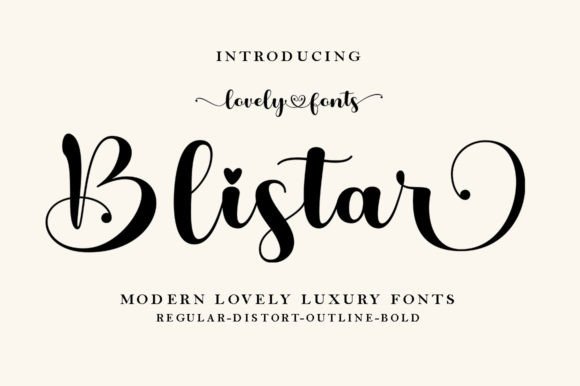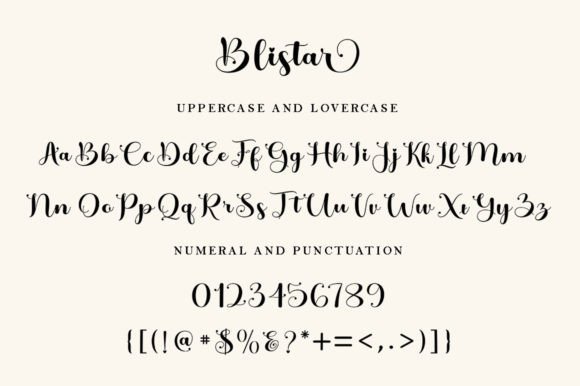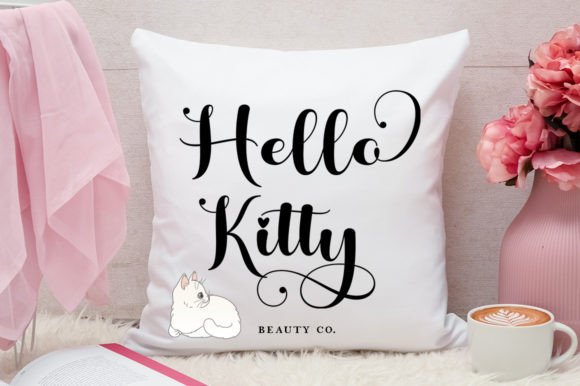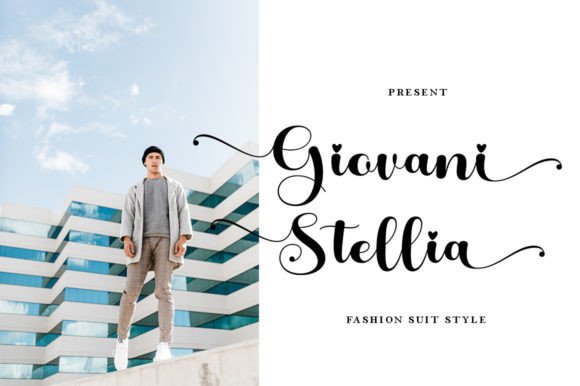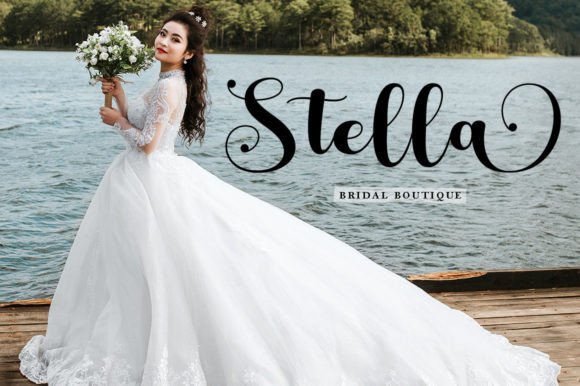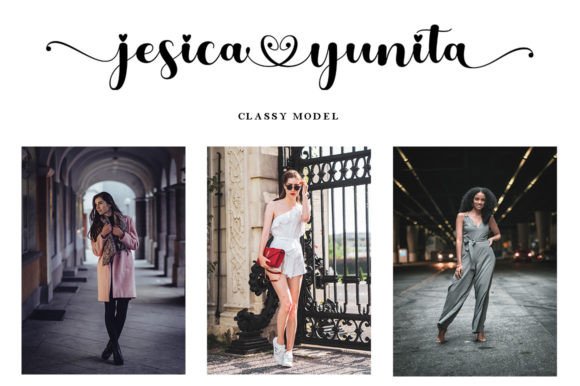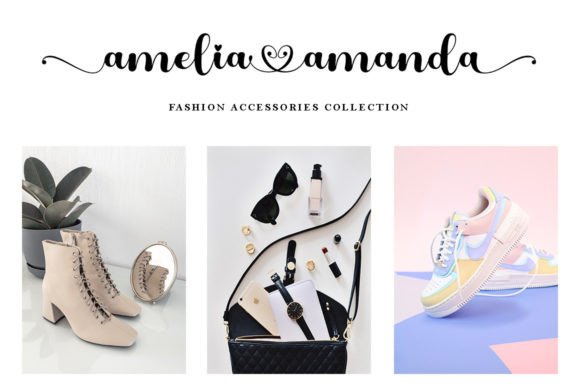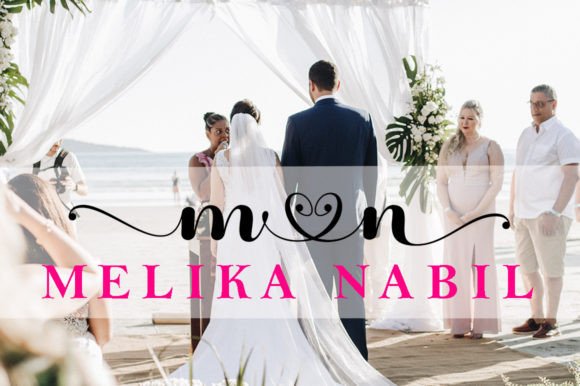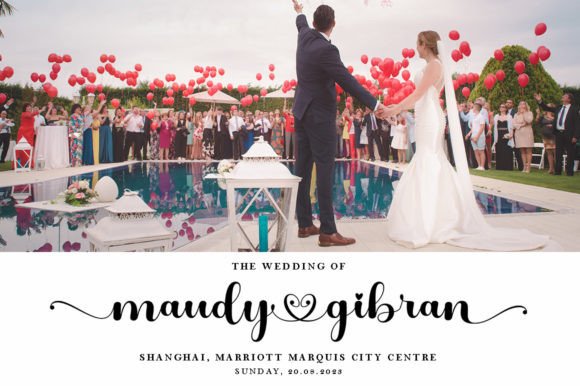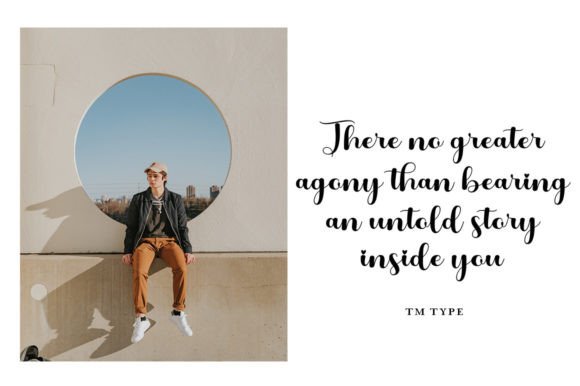
Blistar Font
Blistar Font: Modern Calligraphy for Romantic Designs
“Blistar” is a charming calligraphy font that brings romance and sweetness to your designs. Its graceful characters seem to dance along the baseline, perfect for various creative projects.
Key Features of Blistar Font
• Modern Calligraphy Style: Blistar combines contemporary flair with romantic elegance.
• Versatile Use: Suitable for many projects, from wedding invitations to love letters.
• PUA Encoding: Easy access to all glyphs and swashes for customization.
Wedding Stationery
Blistar’s romantic style is ideal for creating beautiful wedding invitations and other special event materials.
Love Letters and Greeting Cards
Use Blistar to design heartfelt greeting cards and love letters that convey genuine emotions.
The font’s elegant character makes it perfect for creating sophisticated logo designs for romantic or feminine brands.
Why Choose Blistar Font?
Blistar offers more than just beautiful letters. Here’s why it stands out:
• Adds a touch of casual elegance to designs
• Provides creative freedom with its PUA encoding
• Evokes emotions and brings text to life
By using Blistar, you open up new design possibilities. Its romantic style works well in many contexts, from website headers to print materials. The font’s ability to convey sophistication can inspire creative ideas and help you approach projects from a fresh perspective.
Blistar in Digital Design
In the digital realm, Blistar excels in creating engaging social media graphics and poster designs. Its modern calligraphy style can help capture attention and increase engagement on various online platforms, making it a valuable asset for digital marketers and content creators.
If you’re looking for a font that combines modern calligraphy with romance and sweetness, Blistar is an excellent choice. It’s perfect for adding a touch of elegance to your work, especially for projects that need to convey love and sophistication.
Explore how Blistar can transform your designs. From wedding stationery to branding projects, this font brings a graceful and captivating quality to your creations.